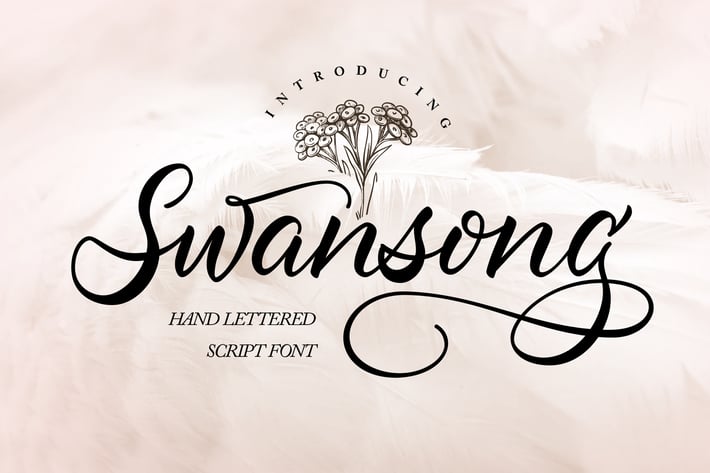
Swansong | Handlettered Script Font
Swansong | Handlettered Script Font with a calligraphy style, So beautiful on invitation like greeting cards, branding materials, business cards, quotes, posters, and more!